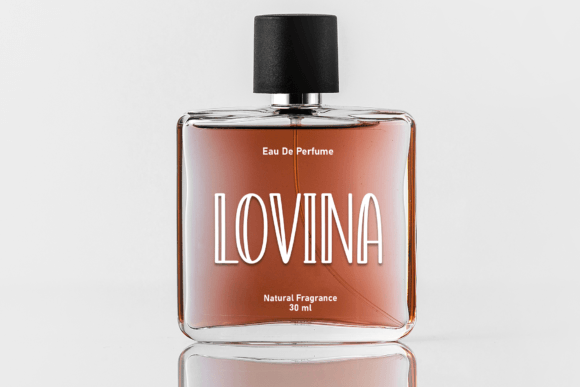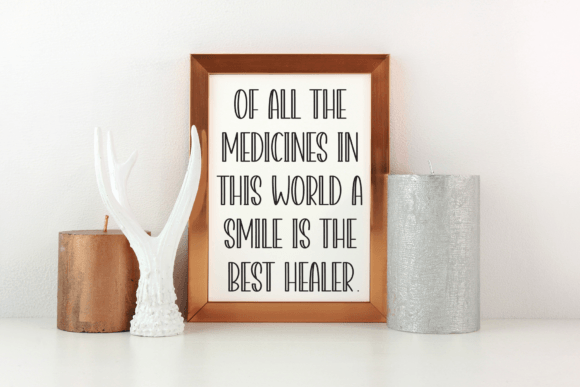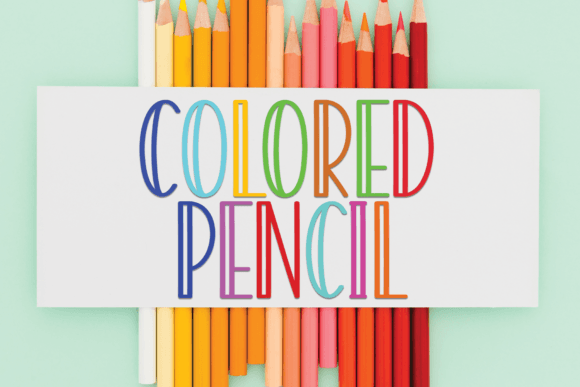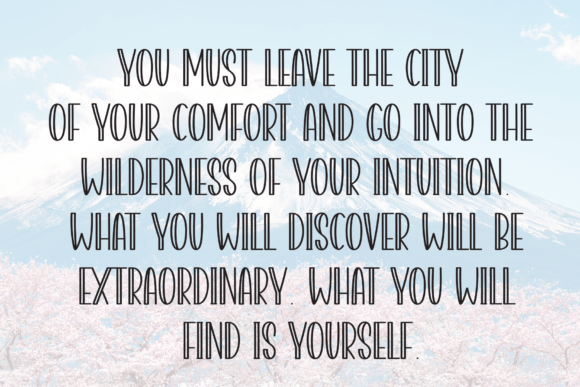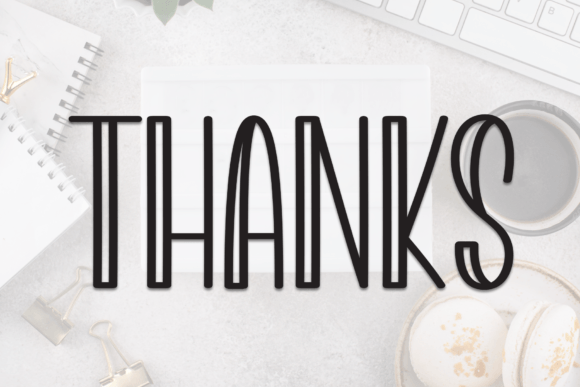
Introducing Happy Monday Font: The Sweet and Friendly Handwritten Font
Are you tired of using the same old fonts in your designs? Do you want to add a touch of personality and whimsy to your creations? Look no further than Happy Monday Font, a sweet and friendly handwritten font that’s perfect for designers and crafters alike. In this article, we’ll dive into the world of Happy Monday Font and explore its unique features, uses, and benefits.
A Natural and Unique Style
Happy Monday Font is a one-of-a-kind handwritten font that’s designed to bring a smile to your face. Its natural and unique style makes it incredibly fitting for a large pool of designs, from playful and fun to elegant and sophisticated. The font’s friendly and approachable vibe is perfect for creating designs that connect with your audience on a personal level.
The best part about Happy Monday Font is that it’s incredibly versatile. The only limit is your imagination! Whether you’re designing a greeting card, a poster, a social media graphic, or a website, this font can be used to add a touch of personality and whimsy to your creations. Here are just a few ideas to get you started:
- Create a fun and playful greeting card for a friend or loved one
- Design a eye-catching poster for a event or promotion
- Develop a social media graphic that showcases your brand’s personality
- Build a website that’s friendly, approachable, and engaging
Happy Monday Font is a must-have for designers and crafters who want to add a personal touch to their creations. Whether you’re a professional designer or a DIY enthusiast, this font is perfect for anyone who wants to create unique and engaging designs. Here are just a few reasons why:
- High-quality design: The font is designed with high-quality craftsmanship in mind, ensuring that your designs look professional and polished
- Customizable: You can use Happy Monday Font to create a wide range of designs, from simple and elegant to complex and playful
What Makes Happy Monday Font So Special?
So what sets Happy Monday Font apart from other fonts on the market? Here are just a few things that make it special:
- Unique and handmade: Happy Monday Font is a handmade font that’s been carefully crafted to ensure that it’s unique and one-of-a-kind
- Natural and friendly vibe: The font has a natural and friendly vibe that’s perfect for creating designs that connect with your audience
- Highly versatile: Happy Monday Font can be used for a wide range of designs, from fun and playful to elegant and sophisticated
Get Ready to Fall in Love with Happy Monday Font
In conclusion, Happy Monday Font is a sweet and friendly handwritten font that’s perfect for designers and crafters who want to add a personal touch to their creations. With its natural and unique style, endless design possibilities, and ease of use, it’s a must-have for anyone who wants to create engaging and unique designs. So why wait? Download Happy Monday Font today and start creating designs that bring a smile to your face!